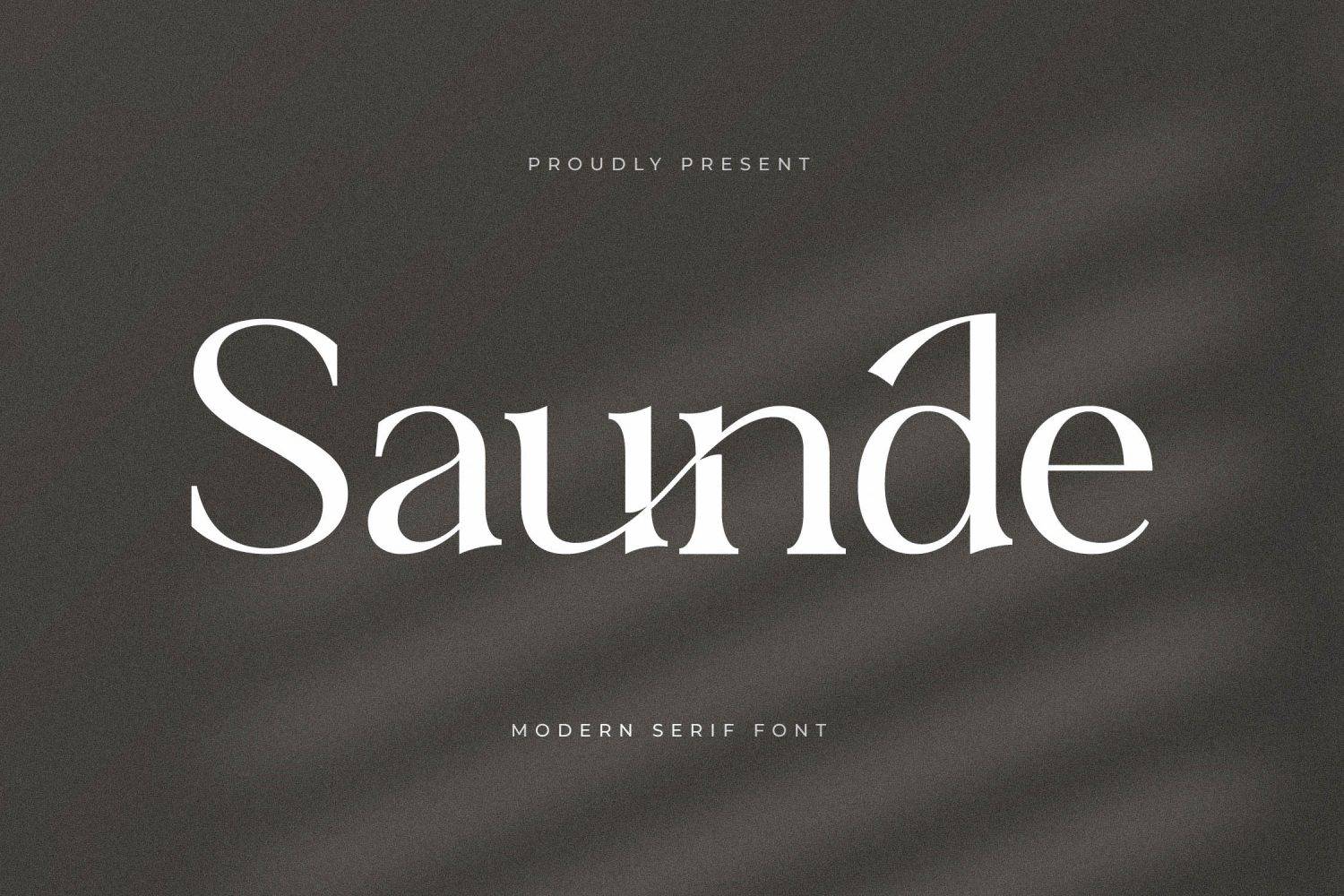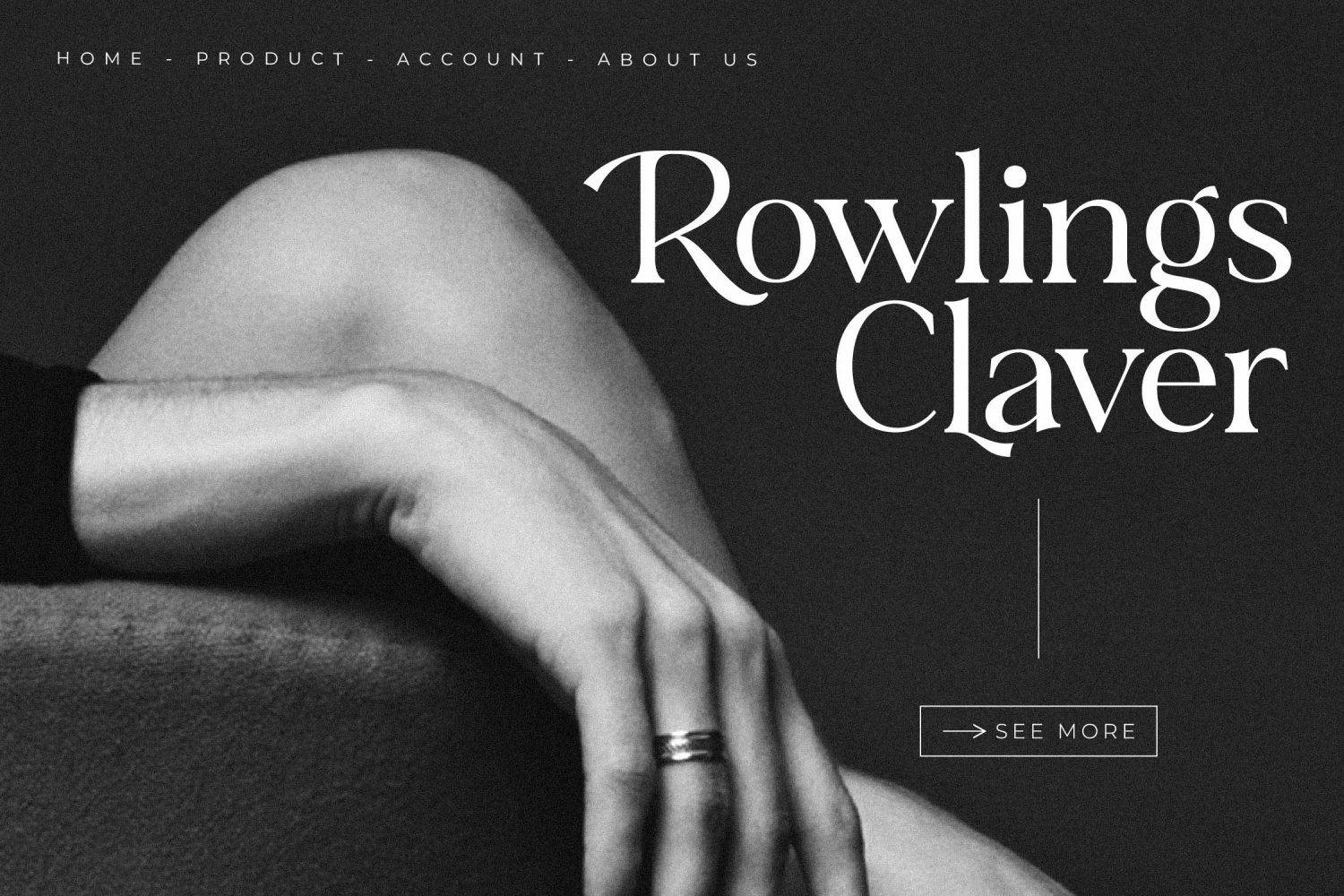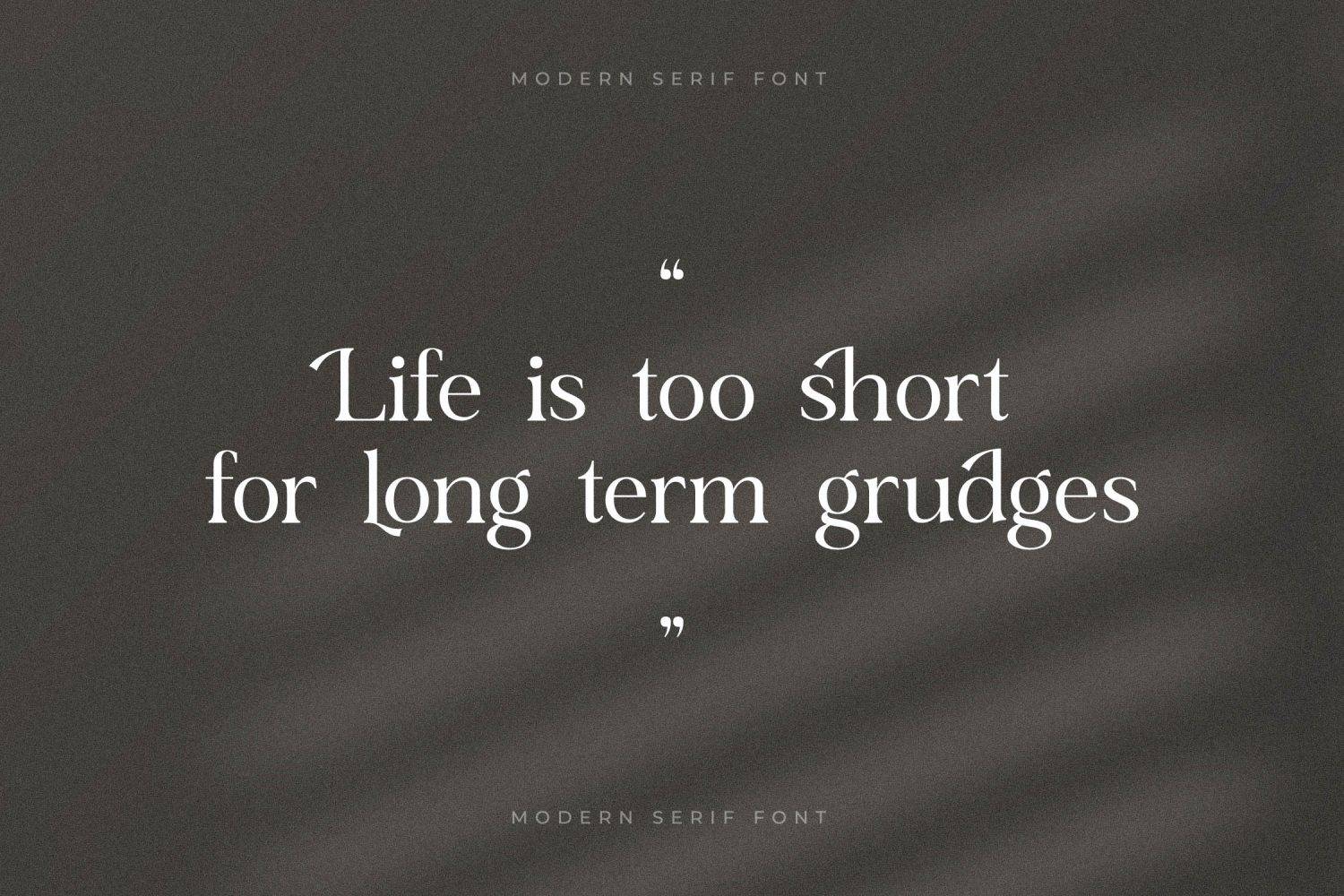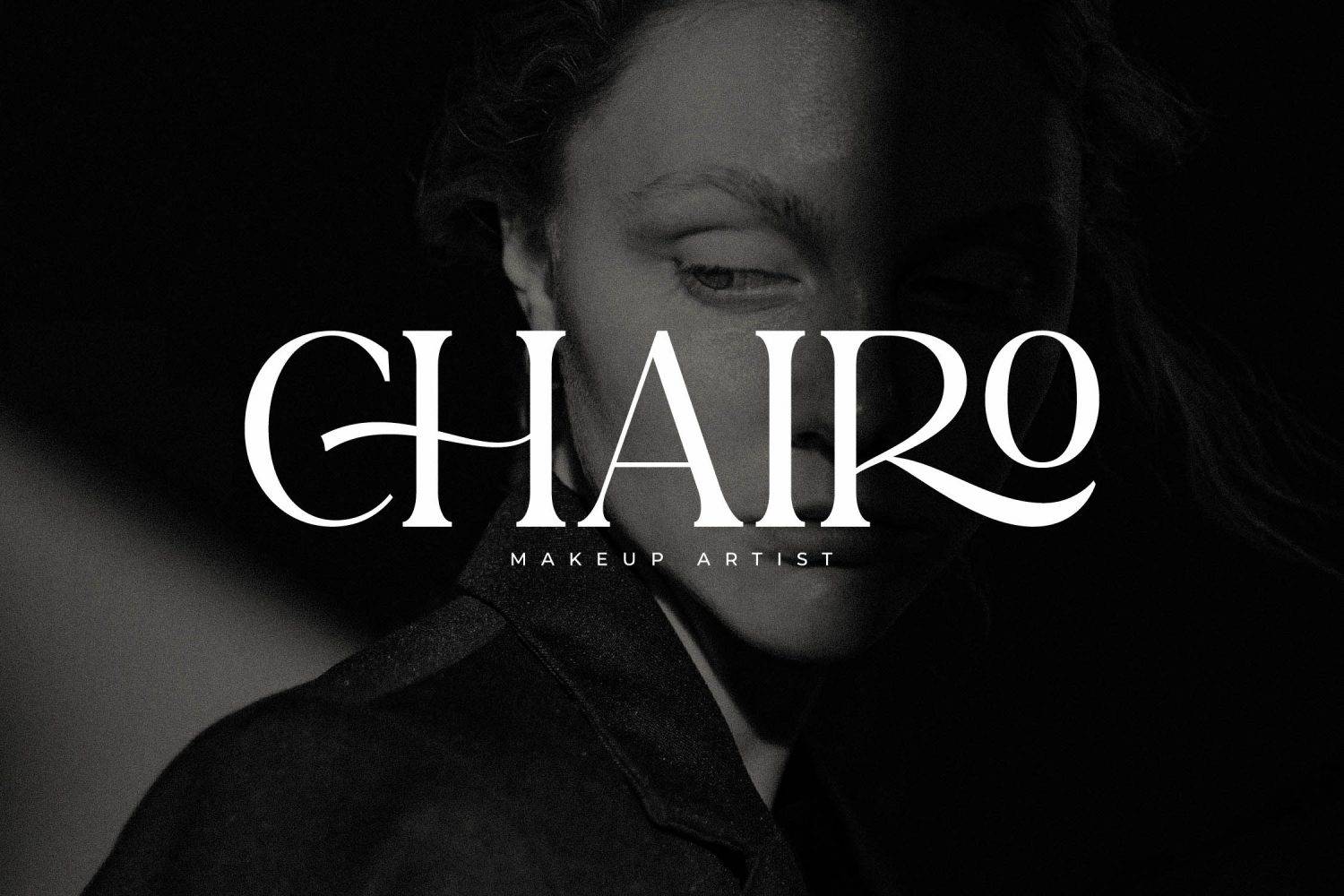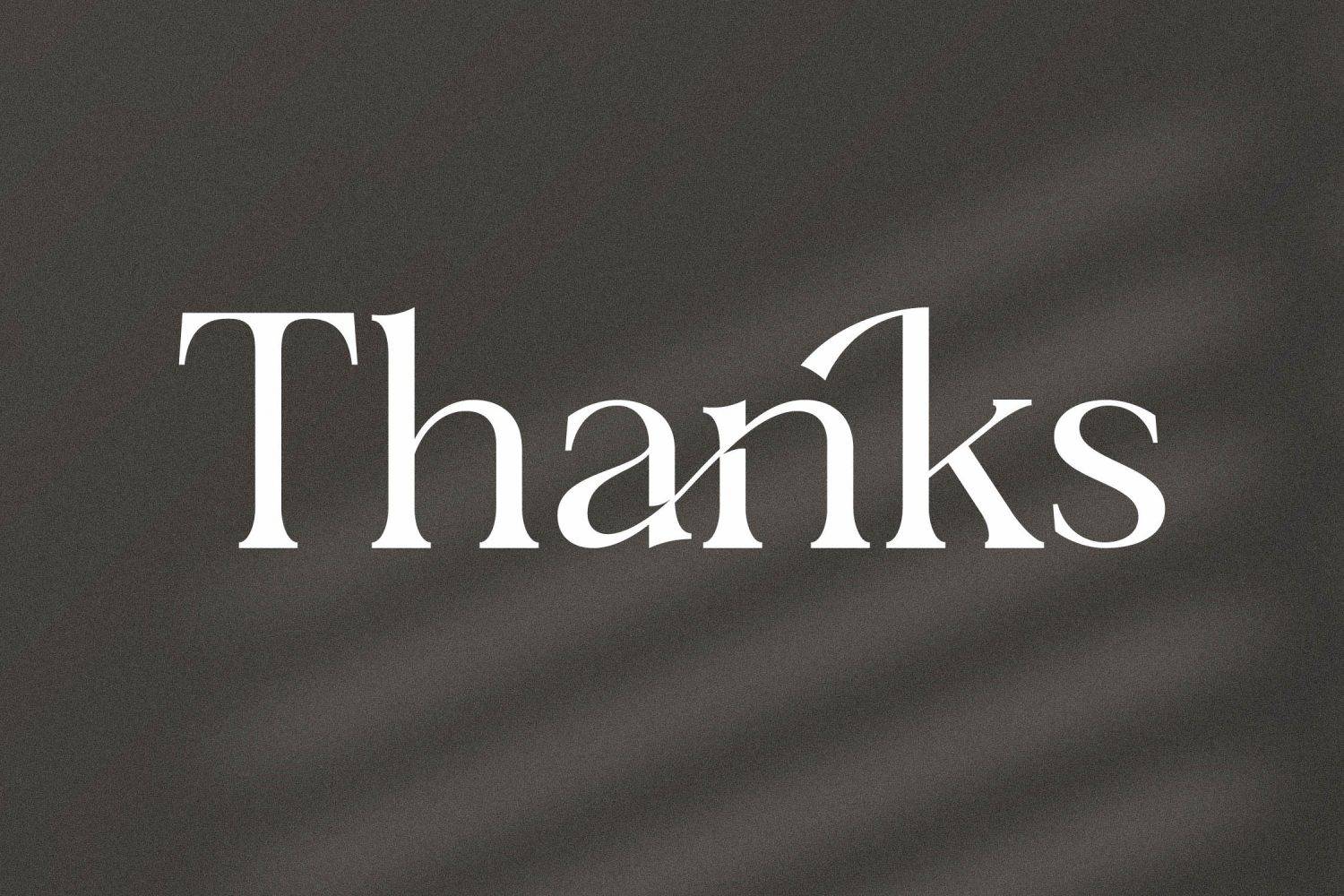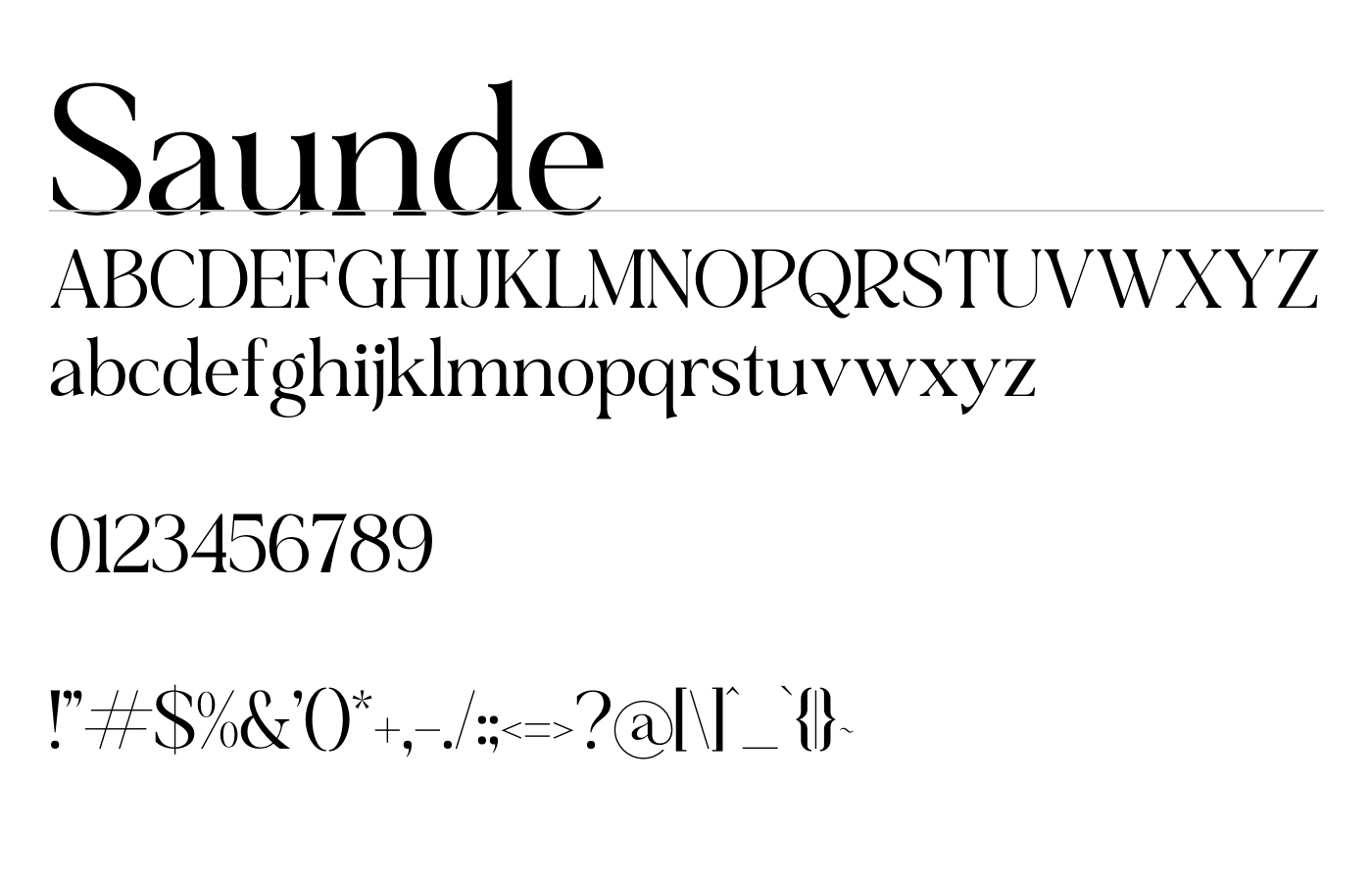
Saunde is an elegant serif font with a refined modern feel, characterized by its high contrast between thick and thin strokes and delicate, bracketed serifs. Its tall, narrow letterforms and single-story characters give it a sophisticated, classic style perfect for fashion branding, editorial headlines, and luxury packaging. This font’s graceful details and clean structure make it ideal for conveying a sense of timeless elegance and professionalism.
Saunde Font
About Saunde Font